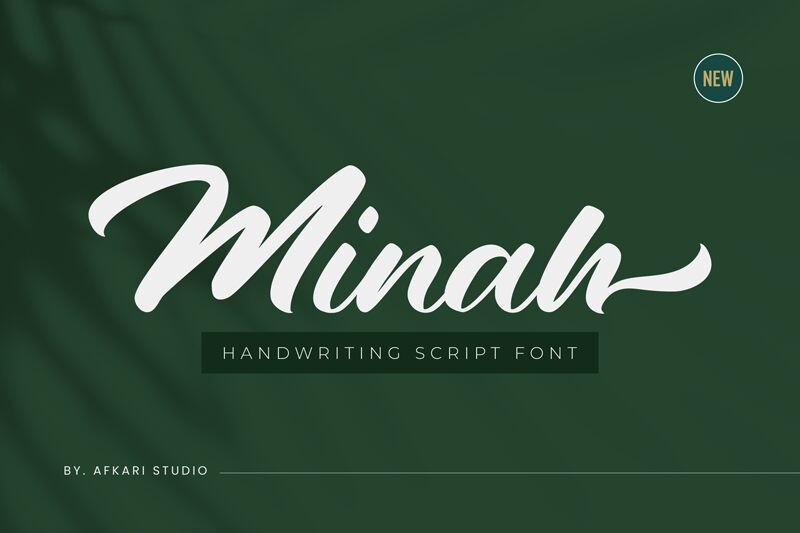
Minah Regular
Minah, the exquisite calligraphy font by Afkari Studio is a stunning addition to any creative project. With its elegant and flowing strokes, Minah is perfect for wedding invitations, branding materials, and high-end fashion projects. This semi-bold typeface is versatile enough to be used for both headings and body text. Its varying widths make it easy to create a striking visual hierarchy that will impress your audience. Let Minah elevate your designs with its sophisticated charm and timeless appeal.